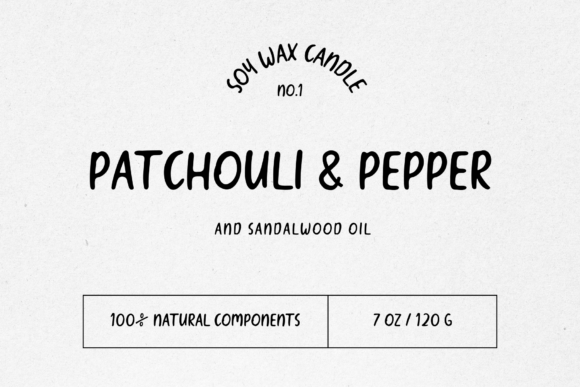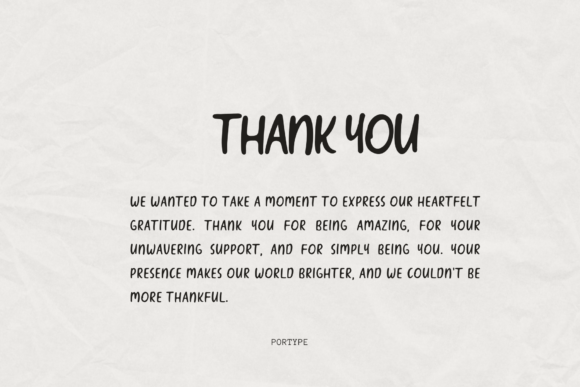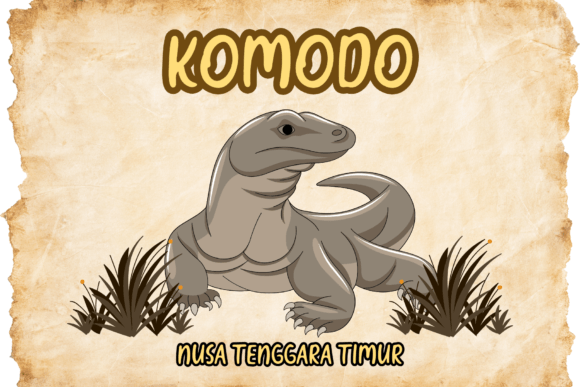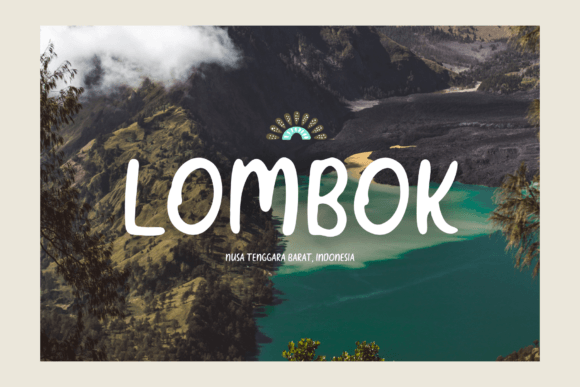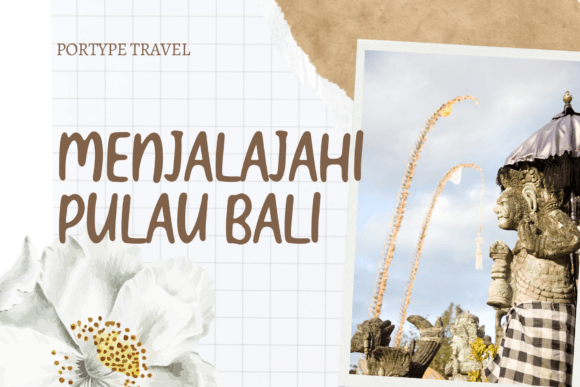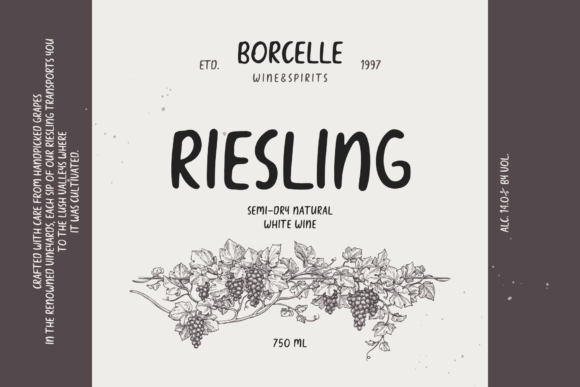
Introduction to Pelukis Senja Font
In the vibrant realm of typography, there exists a font that dances with the hues of dusk “Pelukis Senja”.
With the whimsical charm of a painter’s brush, this handwriting font brings forth a tapestry of joy and brightness to every stroke Each letter, a playful expression, whispers tales of laughter against the backdrop of a setting sun.
Key Features of Pelukis Senja Font